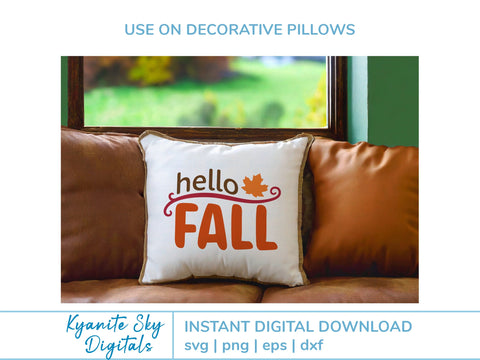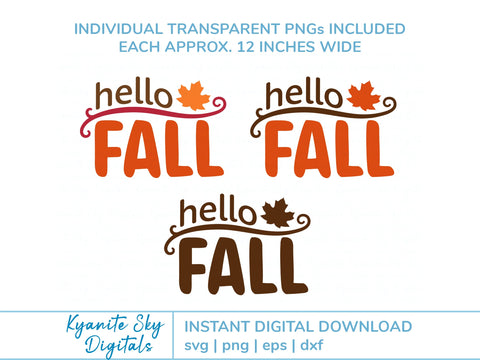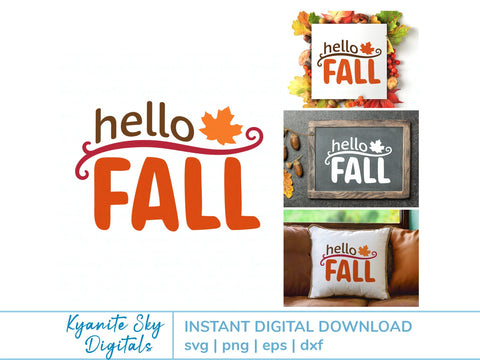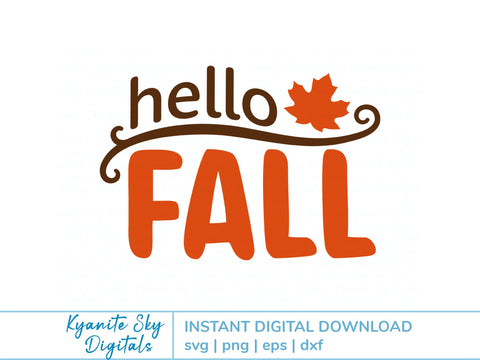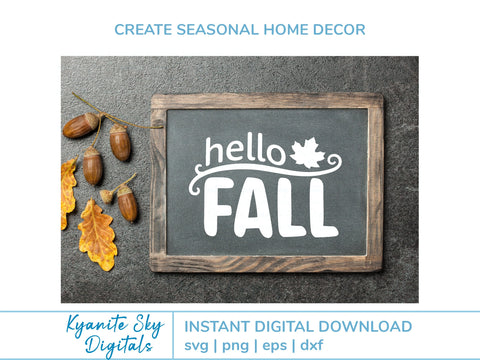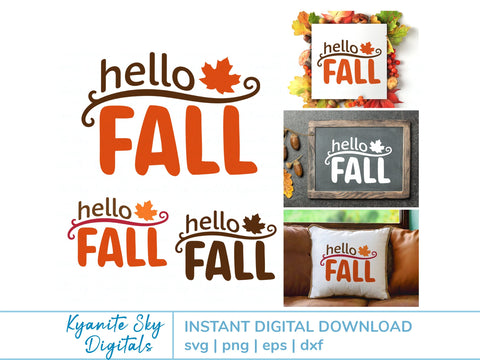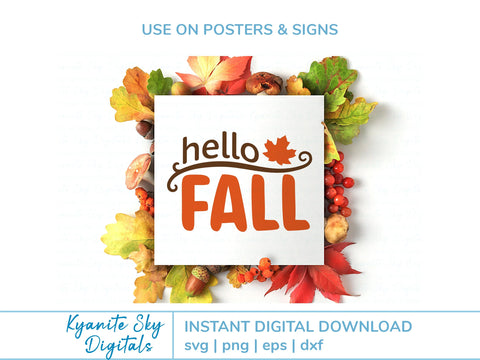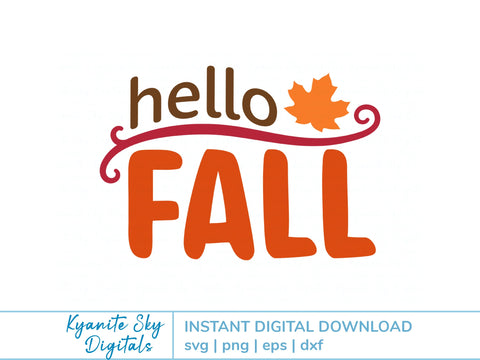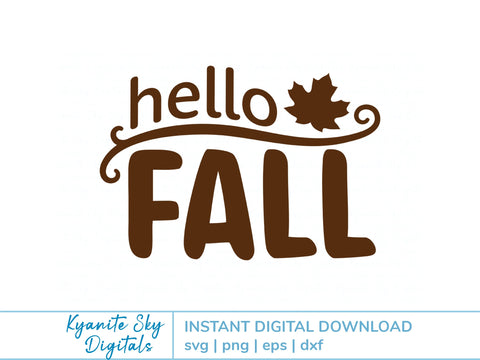
Hello Fall SVG phrase with leaf flourish
"Hello Fall" phrase in fun casual style fonts, accented with flourish and fall maple leaf. Great for seasonal home decor, decorative pillows, framed wall art, custom gift bag or tote, shirts, and more.